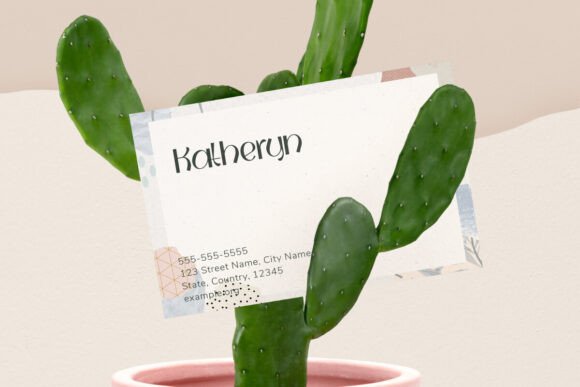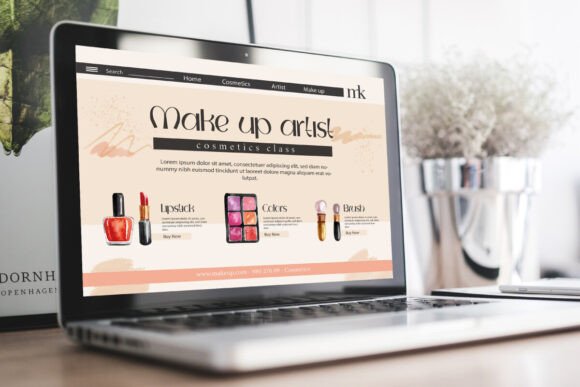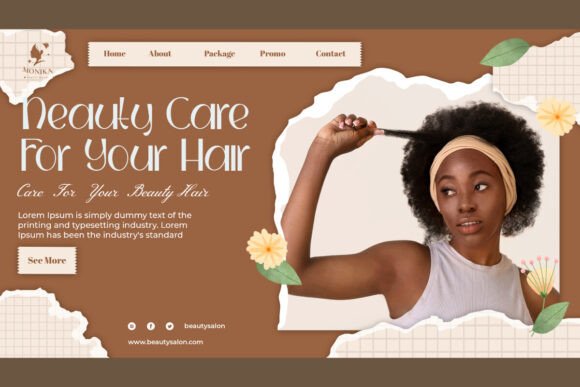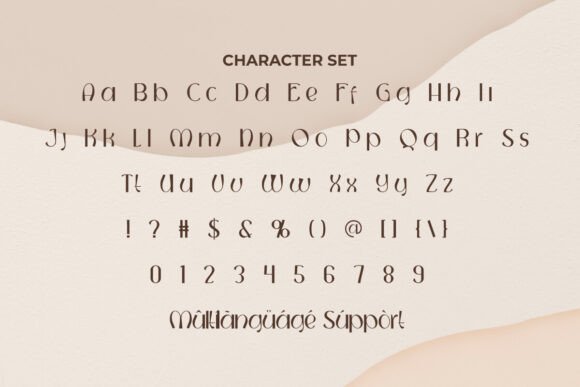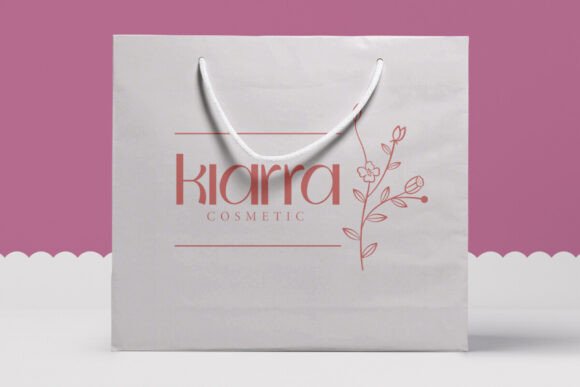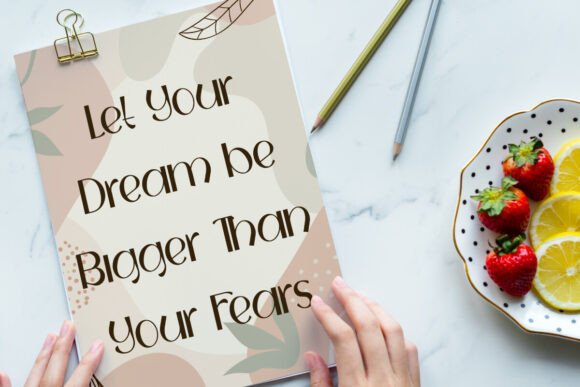
The Ultimate Guide to Hey Sunday Font: A Playful and Versatile Display Font
I’ll never forget the time I was working on a project for a kids’ birthday party invitation. I had a clear vision of what I wanted to create, but I just couldn’t find the right font to bring it all together. That’s when I stumbled upon Hey Sunday Font, a playful, casual sans serif display font that instantly caught my attention. Its unique shape with curved lines made it even more attractive, and I knew I had found the perfect fit for my project.
As I started using Hey Sunday Font, I realized that its versatility extended far beyond kids-related projects. It’s an excellent choice for a wide range of designs, including advertisements, brand images, covers, custom designs, flyers, invitations, labels, menus, posters, product packaging, quotes, signage, photography, stationery, website pages, and more!
An Honest Review of Hey Sunday Font
What I Love About Hey Sunday Font ✨
- ✅ Unique and playful design that adds a touch of personality to any project
- ✅ Highly versatile and can be used for a wide range of designs
- ✅ Easy to read and understand, even in large and small sizes
- ✅ Perfect for creating eye-catching headlines and titles
- ⚠️ Some users may find the font too casual or playful for certain projects
- ⚠️ Limited availability of additional styles or variations
Hey Sunday Font comes with a range of OpenType features and glyphs that can enhance your designs. These include stylistic alternates, ligatures, and more. To access these features, you’ll need to use a design platform that supports OpenType, such as Adobe Photoshop or Illustrator.
The Story Behind Hey Sunday Font
Hey Sunday Font was designed with the intention of creating a playful and fun font that’s perfect for kids-related projects. However, its versatility and charm have made it a popular choice for a wide range of designs. The font’s unique shape and curved lines are inspired by the carefree and creative spirit of Sunday mornings.
| Font Name | Hey Sunday Font |
| Author | RaisProject |
Q: What is Hey Sunday Font?
A: Hey Sunday Font is a playful, casual sans serif display font with a unique shape and curved lines.
Q: What can I use Hey Sunday Font for?
A: Hey Sunday Font is perfect for a wide range of designs, including advertisements, brand images, covers, custom designs, flyers, invitations, labels, menus, posters, product packaging, quotes, signage, photography, stationery, website pages, and more!
Q: Is Hey Sunday Font easy to read?
A: Yes, Hey Sunday Font is easy to read and understand, even in large and small sizes.